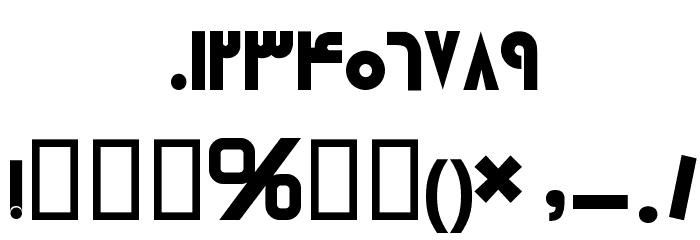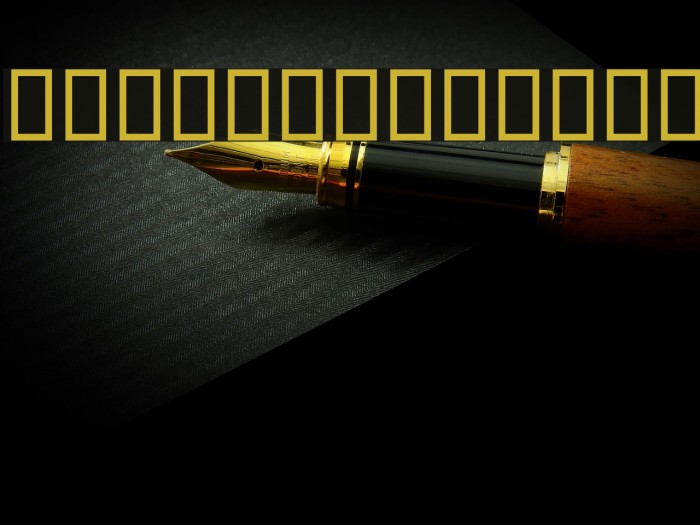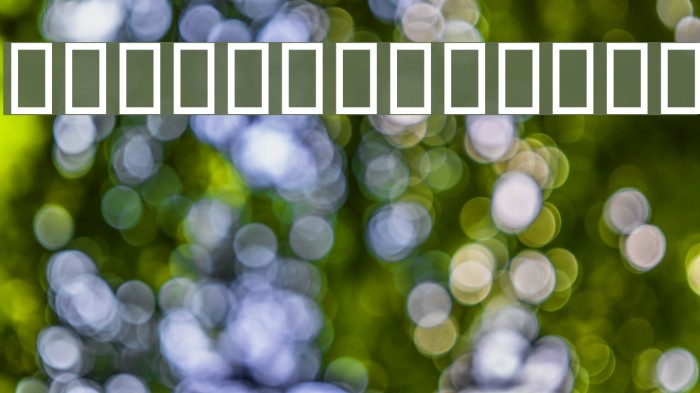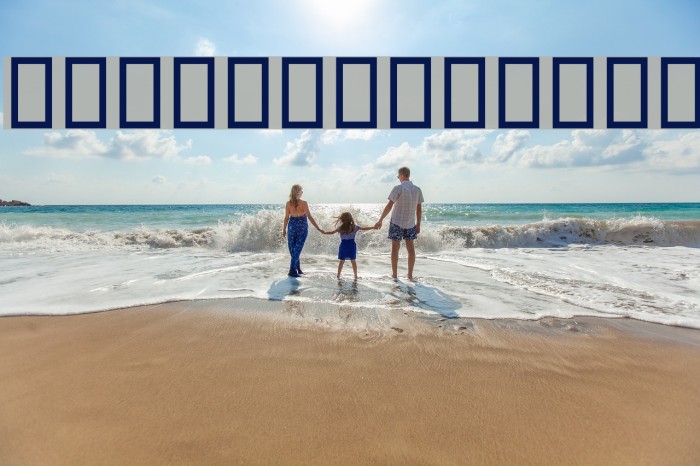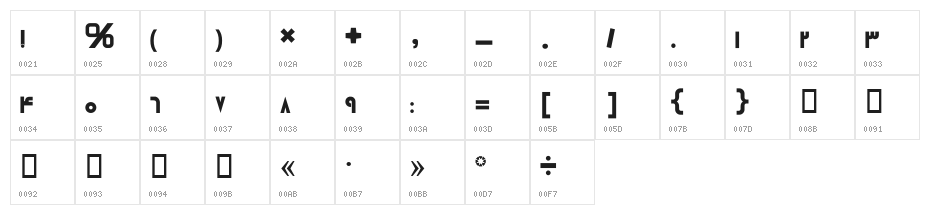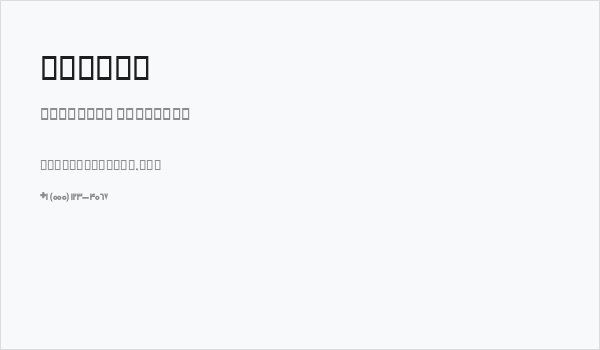
Ghazni Font
This font features a bold and geometric design, characterized by its strong, block-like appearance. The letters are uniformly wide, with consistent stroke thickness throughout, giving it a modern and robust feel. The characters are well-defined, with sharp edges and a clean finish, making it highly legible even at smaller sizes. The numbers and special characters maintain the same bold style, ensuring consistency across all text elements. This font's design is both striking and functional, suitable for a variety of applications where clarity and impact are essential.
A bold, geometric font with uniform stroke thickness and high legibility.
- Proposed Projects: Ideal for branding, headlines, posters, and signage where a strong visual impact is needed.